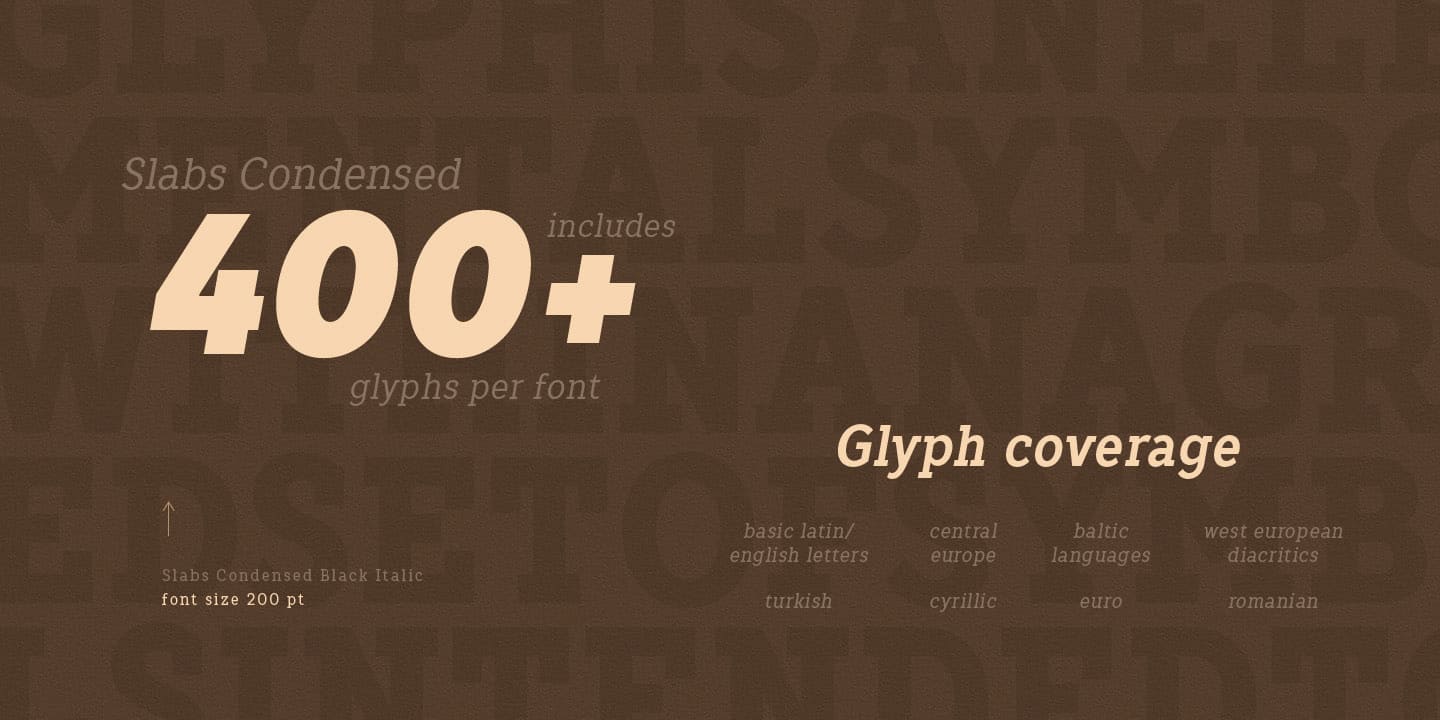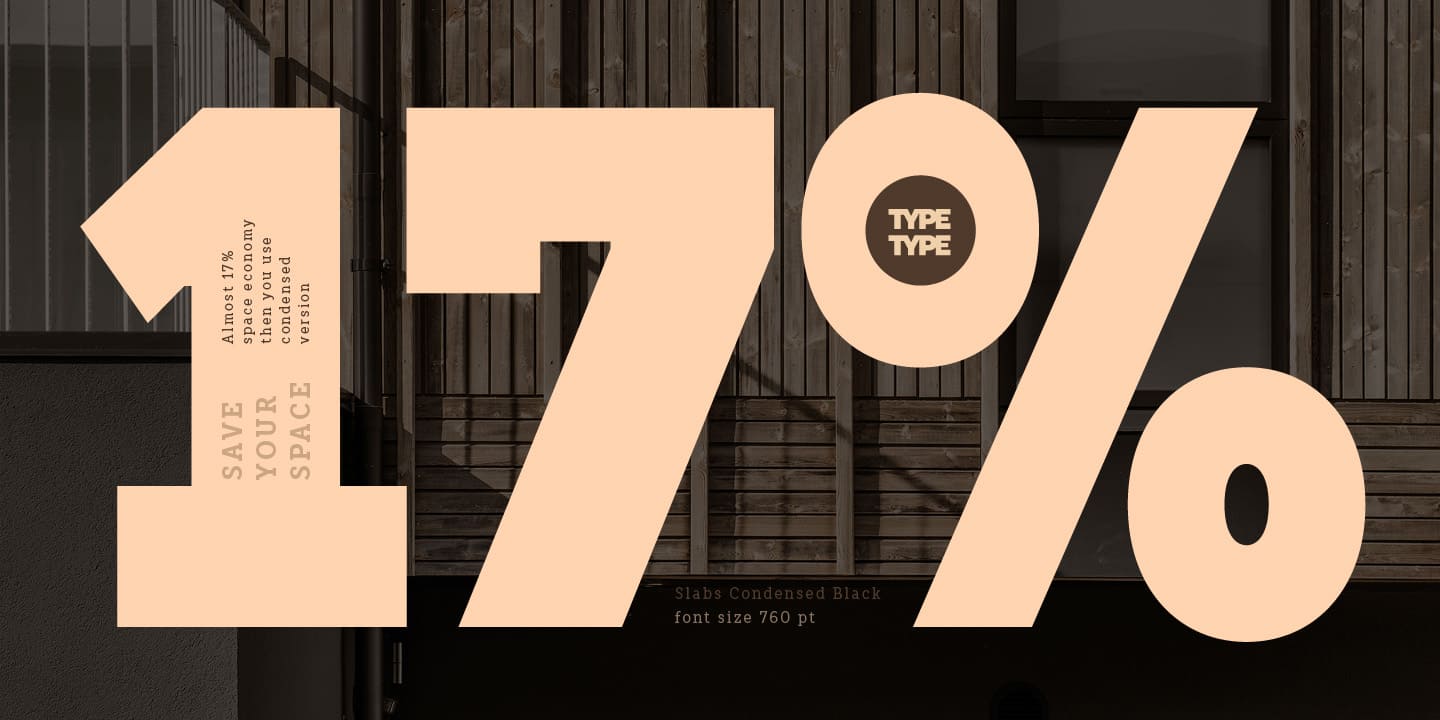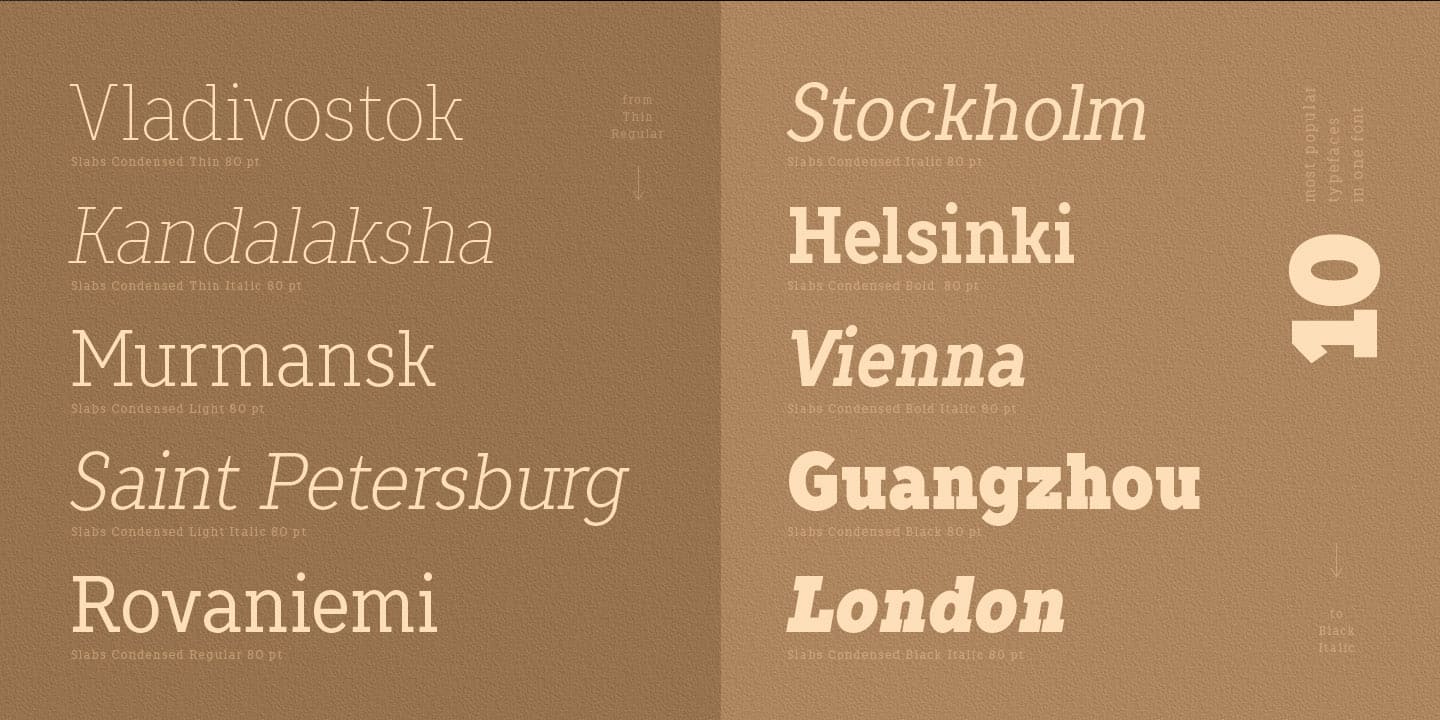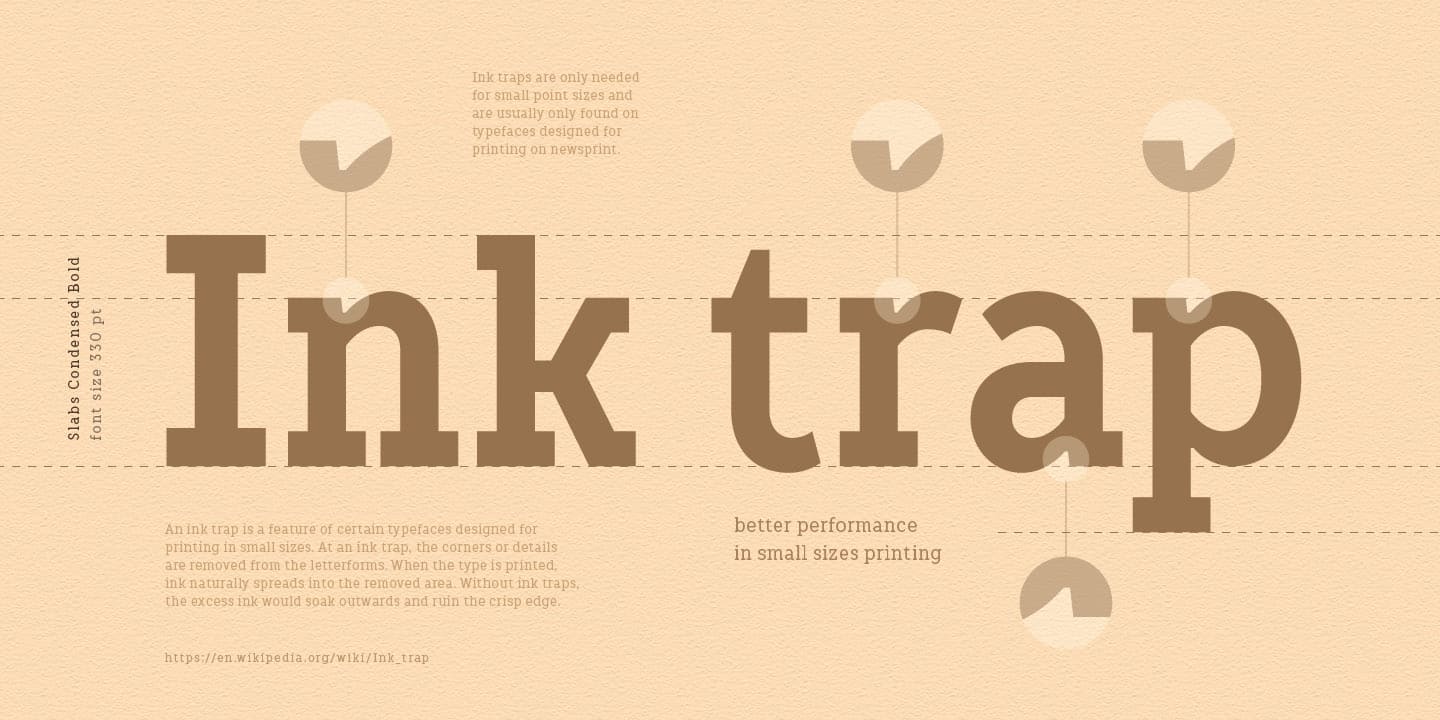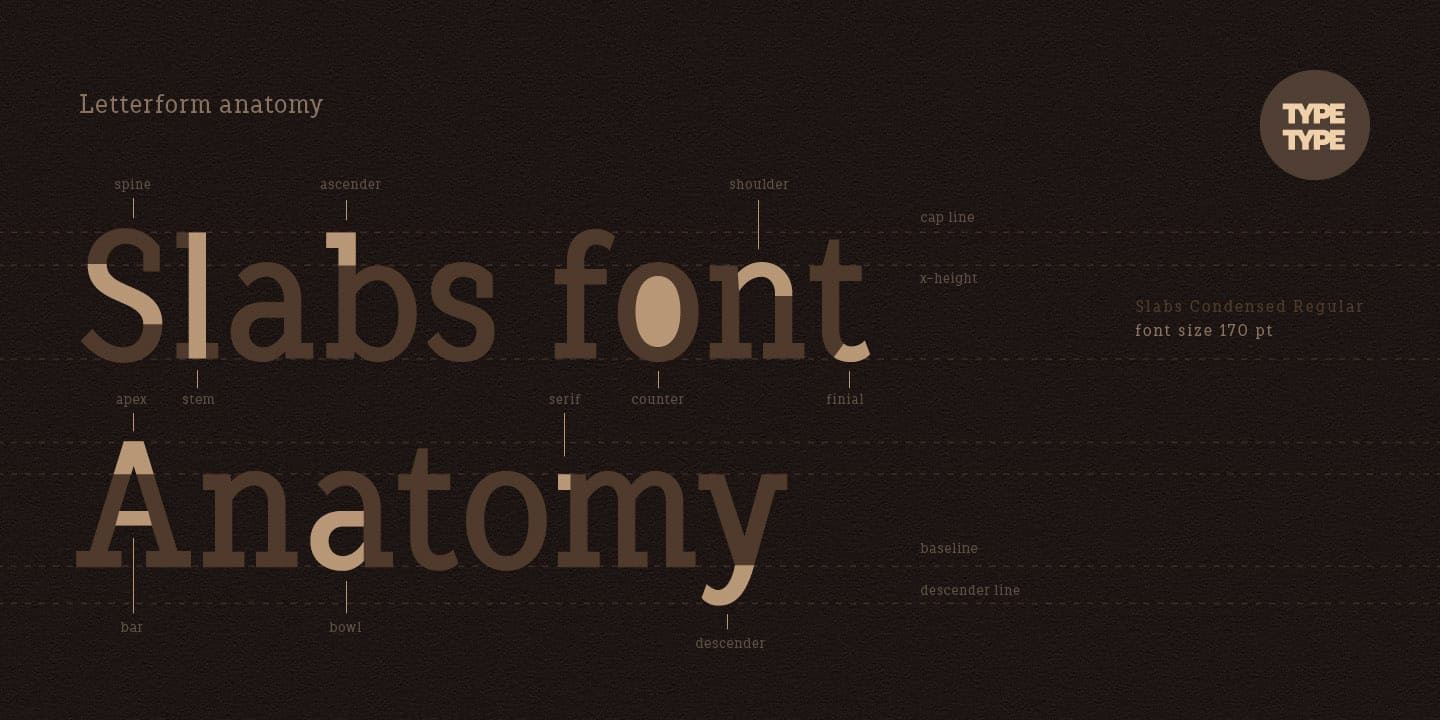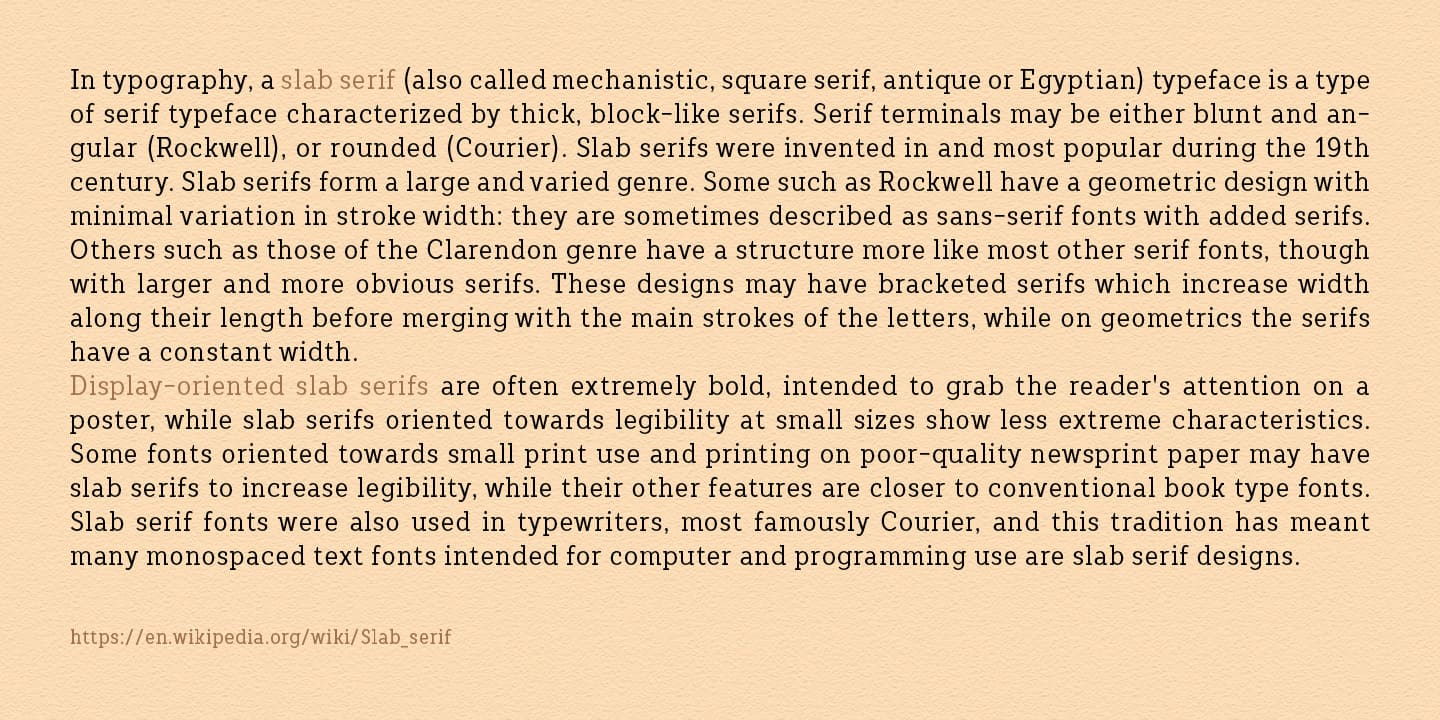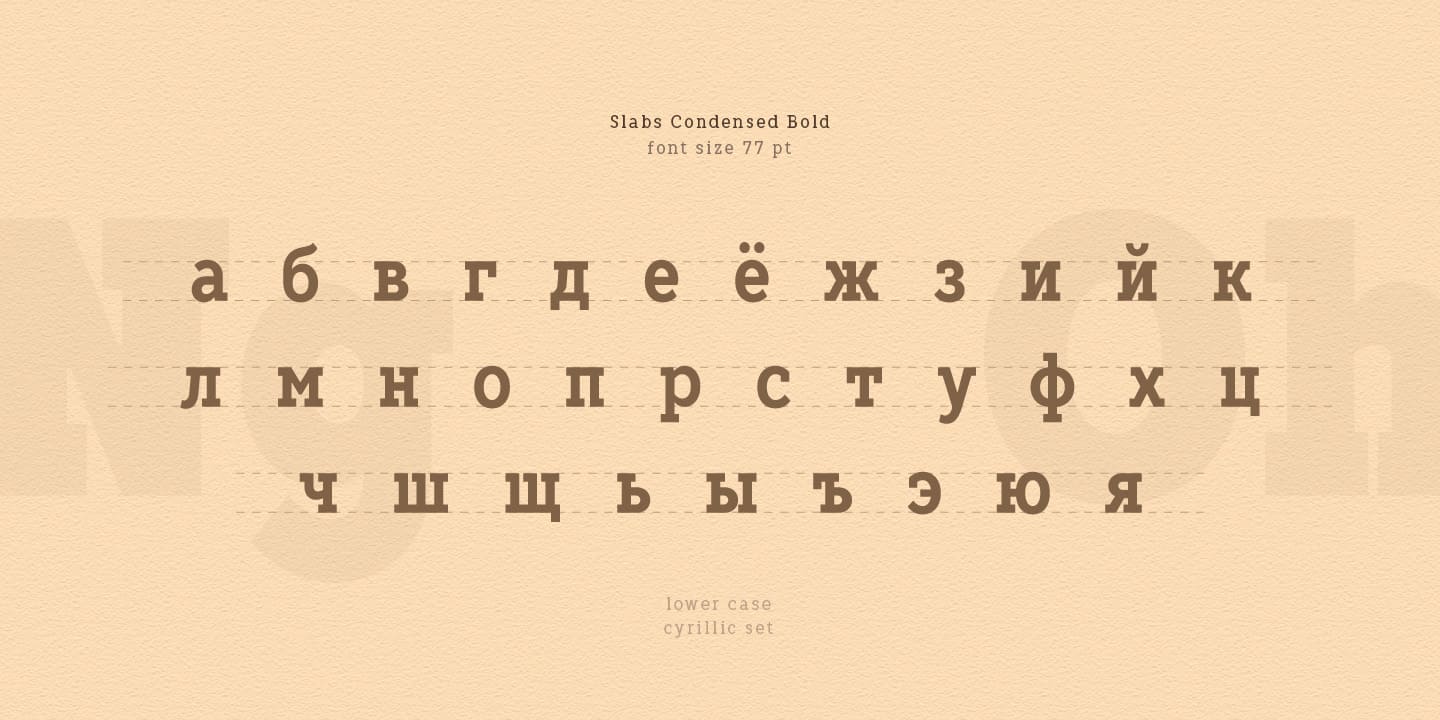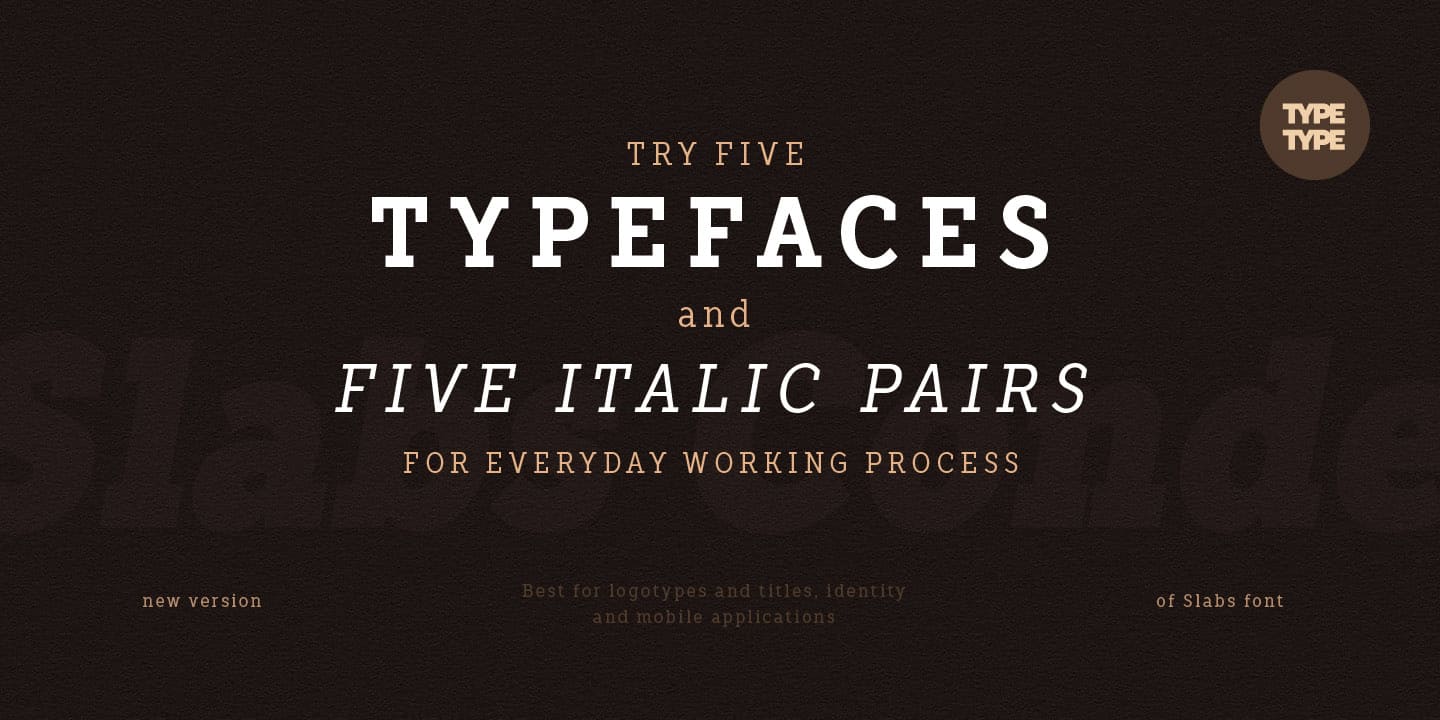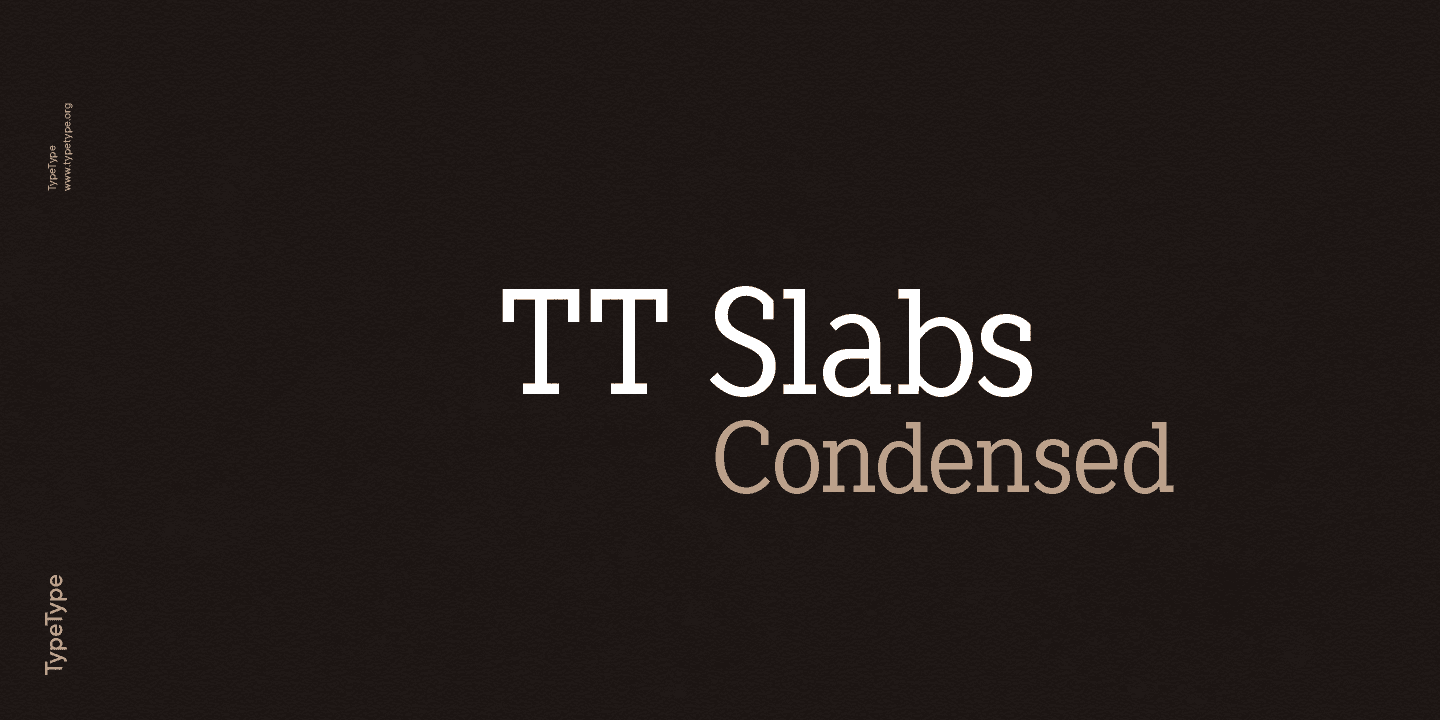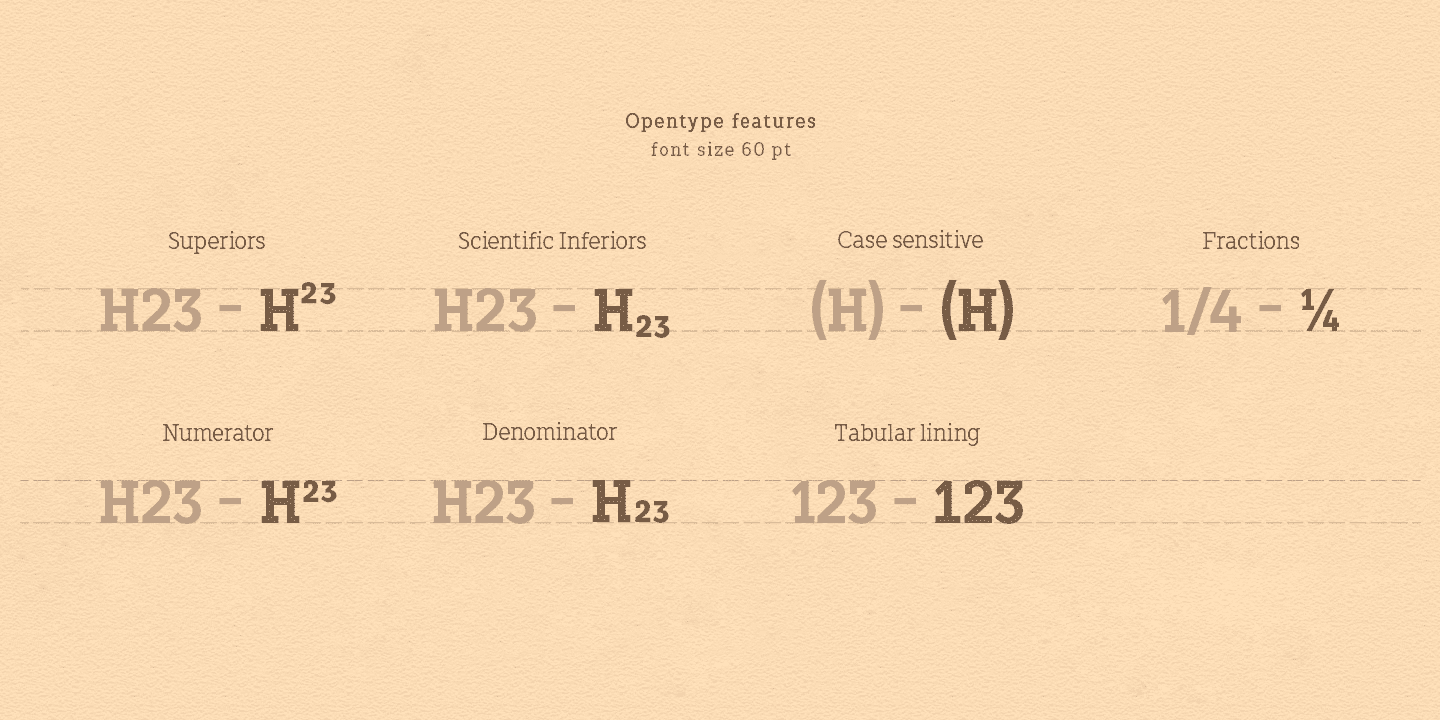
TT Slabs Condensed Family (10 fonts)
World needs a beautiful, simple and high-quality fonts. We need simple and geometric fonts. Slab is a form of serifs, which gave its name to the fontfamily.
If you are looking for a versatile font with wide proportions for your projects — Slabs will suit you perfectly.
Scope: food packaging, packaging of household appliances, newspapers, magazines, headers, signs, theatrical scenery, logos, interior design, decoration of shops, fruit and vegetable labels, homemade design, price tags, engraving.
Optimized for the websites, mobile applications, and printing materials.